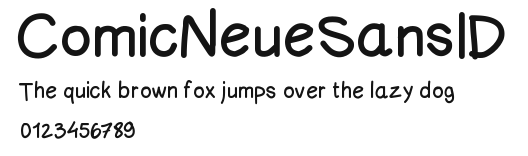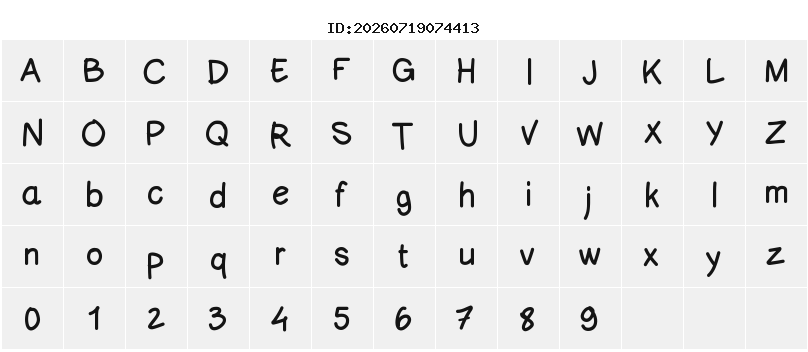
About ComicNeueSansID.ttf
ComicNeueSansID.ttf is a modern, elegant sans-serif font designed for ultimate readability and visual harmony. Perfect for branding, headlines, web design, and print materials.